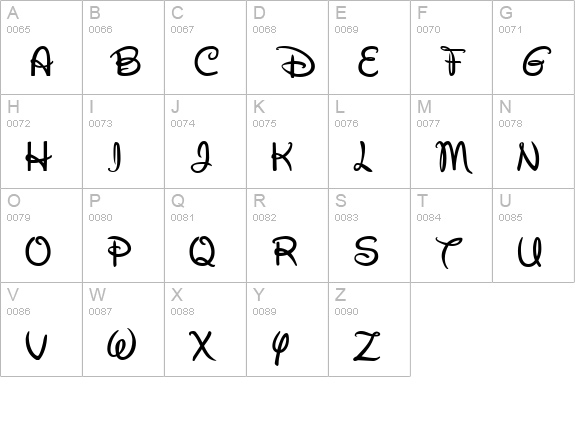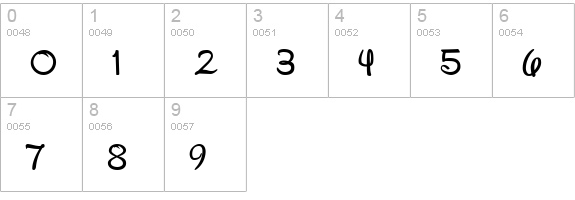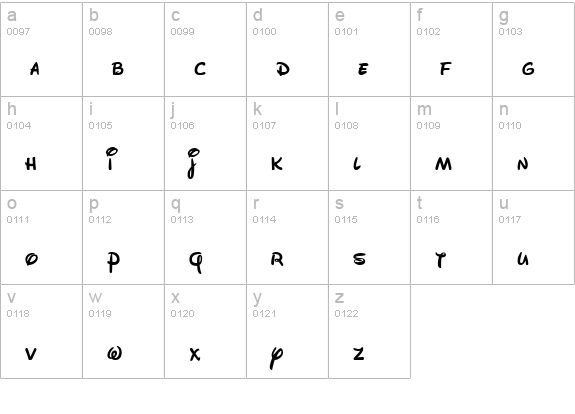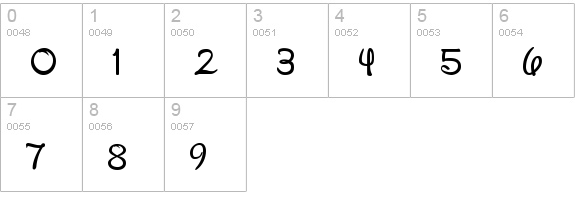
Disney Script Regular Font Details
Disney Script Regular is the standard, neutral variant in the Disney typeface family \xE2\x80\x94 well suited to general body text, paragraphs, and standard typographic work.
Disney Script Regular font captures the whimsical and enchanting essence of classic Disney storytelling. Its graceful curves and playful flourishes evoke a sense of magic and wonder, making it the perfect choice for projects that aim to bring a touch of fairytale charm. Whether you're designing invitations, greeting cards, or posters, this font will infuse your creations with a sense of nostalgia and fantasy. The best part? Disney Script Regular is available for free download at FontsMarket.com. Now, you can add a dash of Disney magic to your projects without any cost. Embrace the joy and enchantment of Disney with this delightful font, and let your creativity soar to new heights. Get your hands on Disney Script Regular today and start creating charming designs that will captivate audiences of all ages.